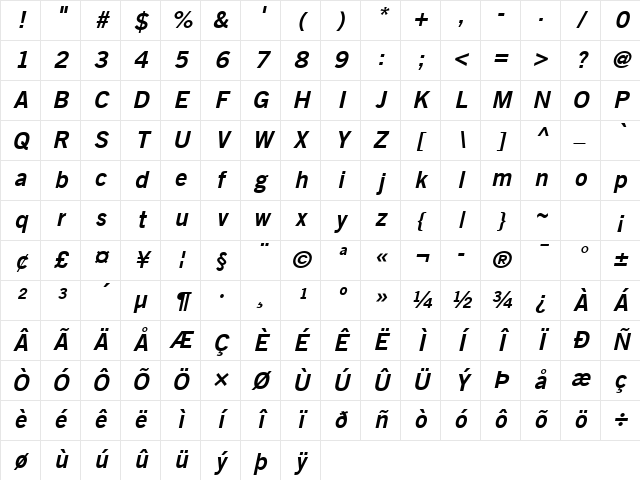
Trade Gothic LT Com Bold No. 2 Oblique
Style: Bold No. 2 Oblique
Designer: Jackson Burke
Complete Trade Gothic LT Com Bold No. 2 Oblique glyph index. Displaying only characters natively supported by Trade Gothic LT Com Bold No. 2 Oblique font.
Design Context for Trade Gothic LT Com
Trade Gothic LT Com takes a clean, functional approach - its unadorned letterforms prioritise legibility and work reliably across screen and print environments. The slanted form adds forward momentum and visual energy. Its bold stroke weight gives it real presence on the page.
Font Pairing: Use Trade Gothic LT Com for headlines alongside a lighter-weight sans or serif for body copy to establish clear visual hierarchy.
Pro Tip: Use Trade Gothic LT Com with generous tracking and line-height for the most luxurious effect - light sans-serifs reward spacious, considered layouts.